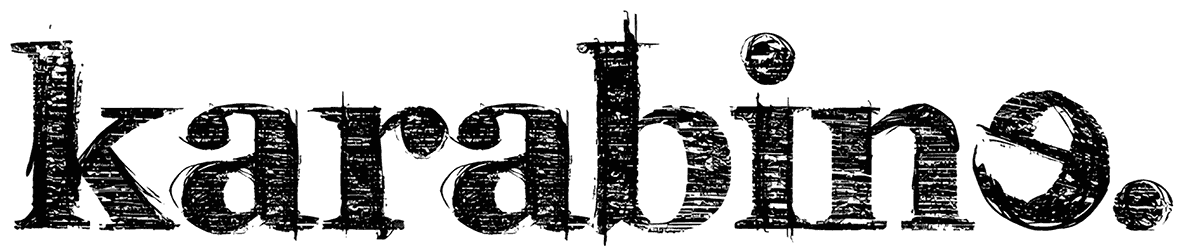
The Karabine is a sketched font that does not support capital letters and is helpful on several occasions. This eye-catching font is so popular among youngsters as it sends a friendly vibe and stays in the viewers’ minds.
It may be appropriate for cases such as packaging or the body of posters. The Karabine font has a creative design in which some letters are reversed, and this spectacular feature has made this font impressive.